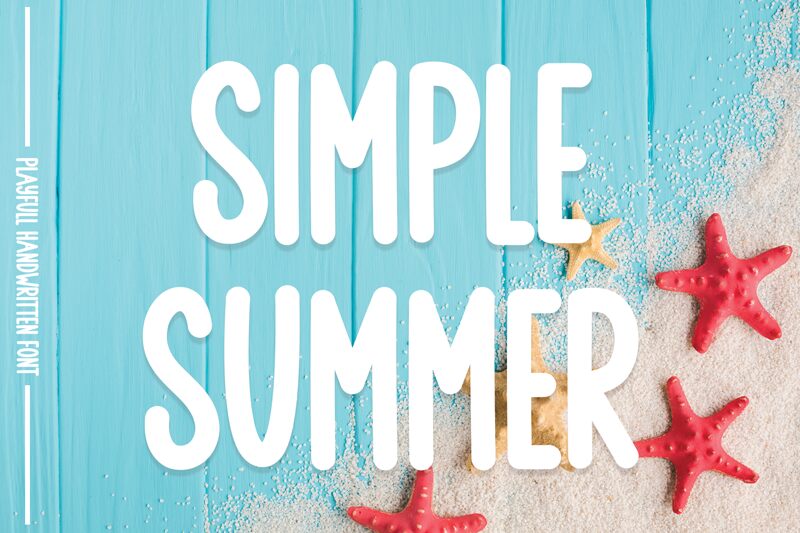
Simple Summer
Simple Summer, designed by Scratchones, is a charming handwritten font that exudes a relaxed and carefree vibe. Its extra-condensed width adds a touch of elegance to any project.
With its allcaps design, Simple Summer is perfect for creating eye-catching logos that demand attention. The font's playful and organic style makes it ideal for designing greeting cards or invitations with a personal touch. Whether used in digital or print media, this unique typeface will infuse your designs with summer warmth and joy.
Let Simple Summer bring your projects to life with its delightful simplicity and artistic flair.